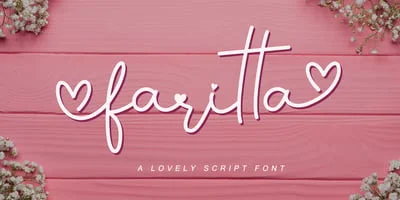
Faritta Font
Faritta Font is perfect for elegant fashion boutiques, sophisticated lifestyle magazines, upscale beauty salon branding, premium jewelry marketing, refined wedding planners, luxury spa services, chic restaurant identities, and stylish personal branding projects.
Faritta Font is exciting because it captures the essence of refined femininity and contemporary elegance through its graceful character design that embodies the sophisticated beauty of modern lifestyle and the timeless appeal of classic fashion sensibilities. Its stylish styling and elegant appeal make it the perfect choice for brands that want to communicate sophistication, grace, and the empowering beauty of feminine excellence.
Faritta Font family includes multiple elegant variations: Faritta Light, Faritta Regular, Faritta Medium, Faritta Bold, Faritta Italic, and Faritta Script, along with sophisticated decorative elements and elegant symbols, providing designers with comprehensive tools for creating authentic fashion and lifestyle-themed brand experiences.
When exploring feminine typography solutions, Faritta Font emerges as the definitive choice for designers working on fashion and lifestyle projects that require genuine elegant sophistication and stylish appeal. This beautiful typeface embodies the essence of modern femininity while offering the versatility needed for contemporary fashion marketing and luxury lifestyle communications. The font's graceful character and elegant resonance create immediate connections with audiences who appreciate sophisticated style and refined beauty.
Fashion professionals consistently choose Faritta Font for projects requiring authentic elegant sophistication and powerful stylish appeal. Its expertly crafted letterforms feature fashion-inspired influences that work exceptionally well in both large-scale boutique displays and intimate luxury product packaging applications. The font's ability to convey grace and feminine elegance while maintaining strong brand recognition makes it invaluable for comprehensive identity systems in the fashion, beauty, and luxury lifestyle sectors.
Whether you're developing fashion brand identities, creating luxury lifestyle marketing materials, or designing elegant event promotions, Faritta Font delivers the authentic elegant character and stylish appeal that resonates with audiences who appreciate refined femininity and sophisticated beauty. Its fashion significance and graceful design ensure your projects capture the empowering elegance of modern style while maintaining contemporary professional standards that attract discerning fashion consumers and luxury lifestyle enthusiasts.